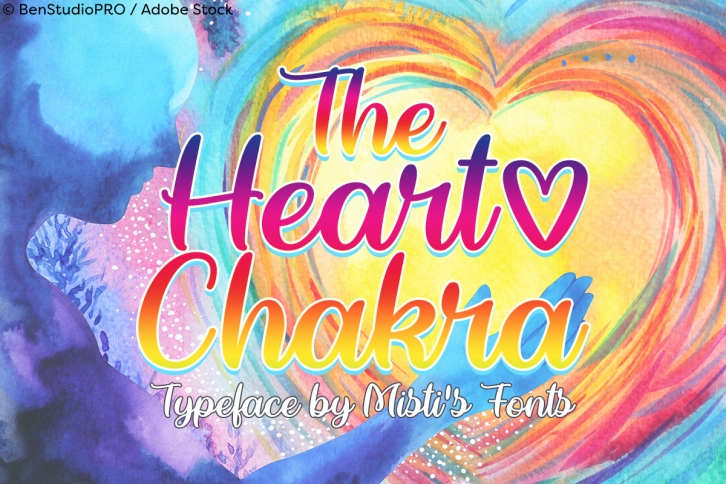
The Heart Chakra is a trendy and unique font with an authentic style. It was designed by Misti Fonts and it's a great choice for creative people who need such a font. It was released on February 18, 2019 and the file size is 17.96 MB. The Heart Chakra will add an organic vibe to any design idea!